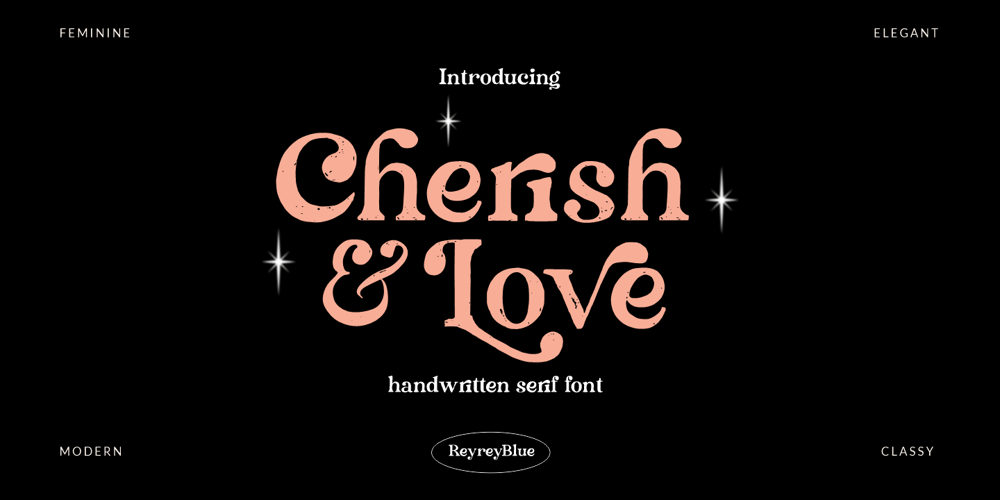
Cherish & Love Font Family was designed by Risca Anitawati and published by Reyrey Blue Std. Cherish & Love contains 1 styles and family package options. Cherish & Love is a handwritten trendy serif font It has both modern and retro look – bold, modern and fun. It’s packed with plenty of alternates and ligatures to really bring it to life, and give you a wide range of customisation options. It is perfect for any projects such as : logos, branding projects, homeware designs, product packaging, mugs, quotes, posters, shopping bags, t-shirts, book covers, name card, invitation cards, greeting cards, label, photography, watermark, special events, and much more.Features :· All Uppercase and Lowercase· Number & Symbol· Supported Languages· Alternates and Ligatures· PUA Encoded